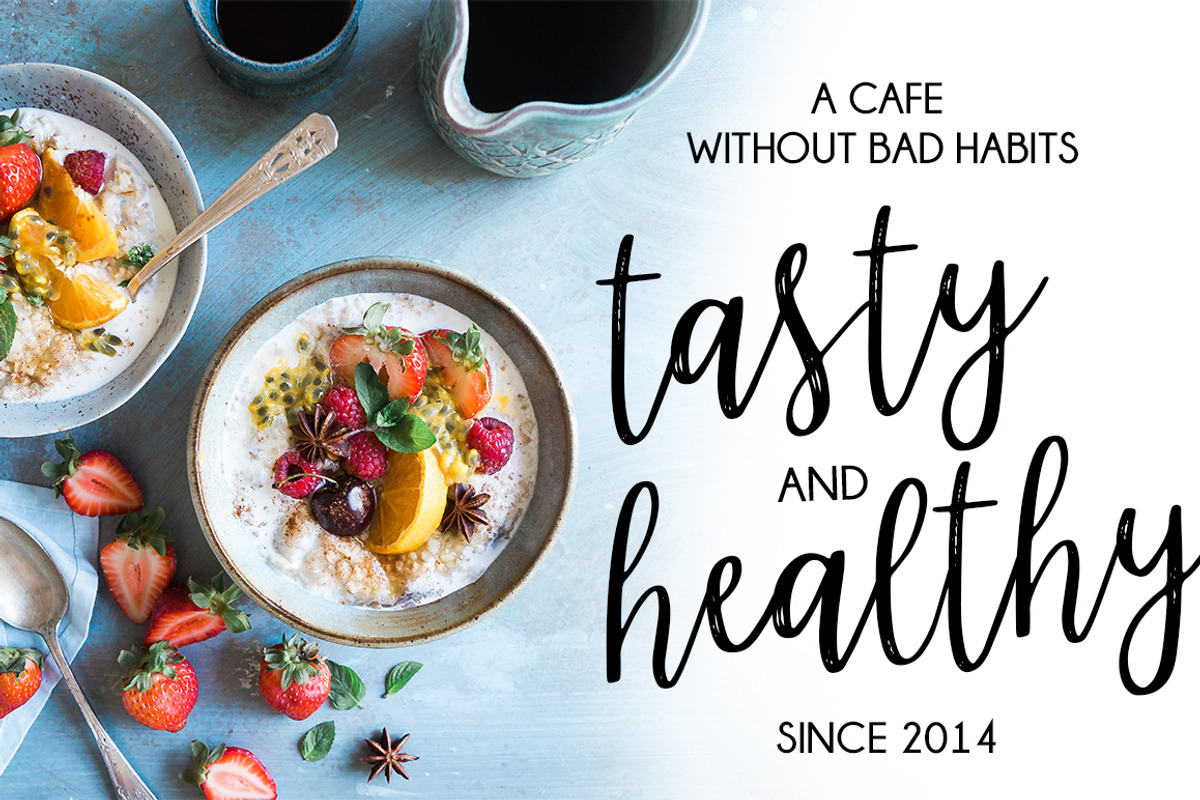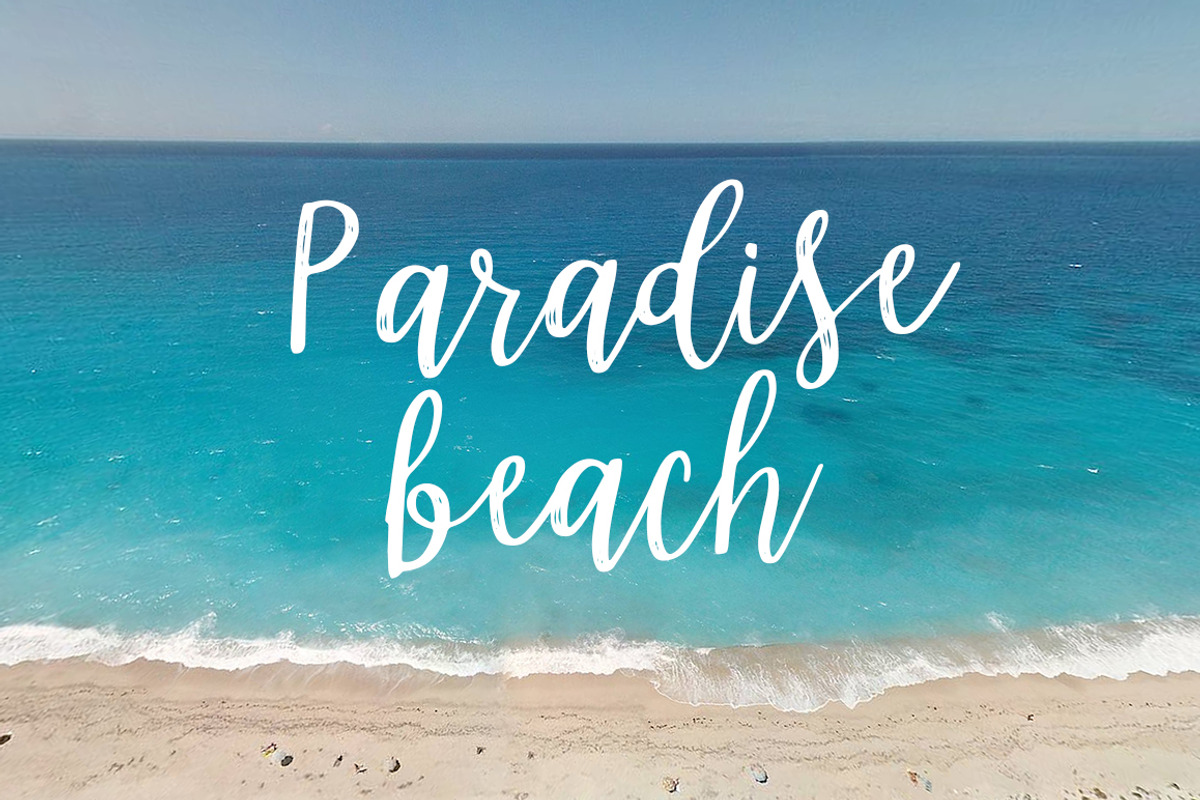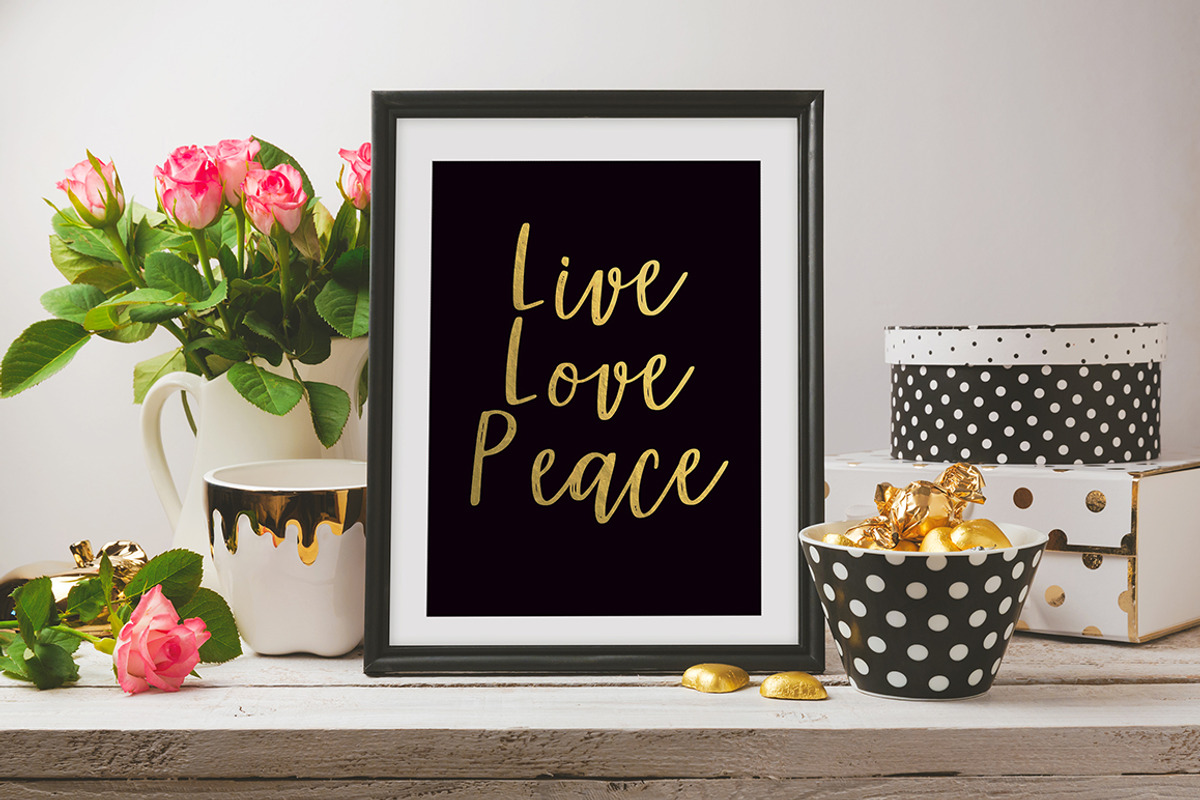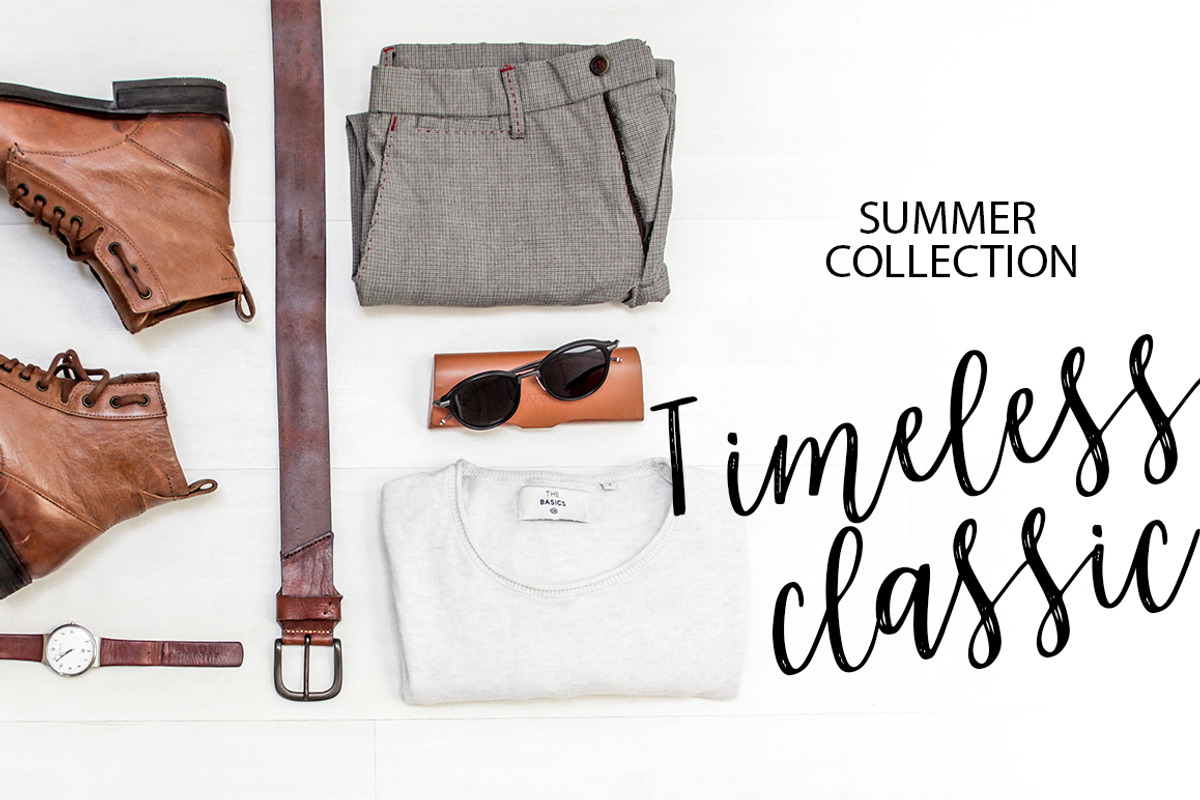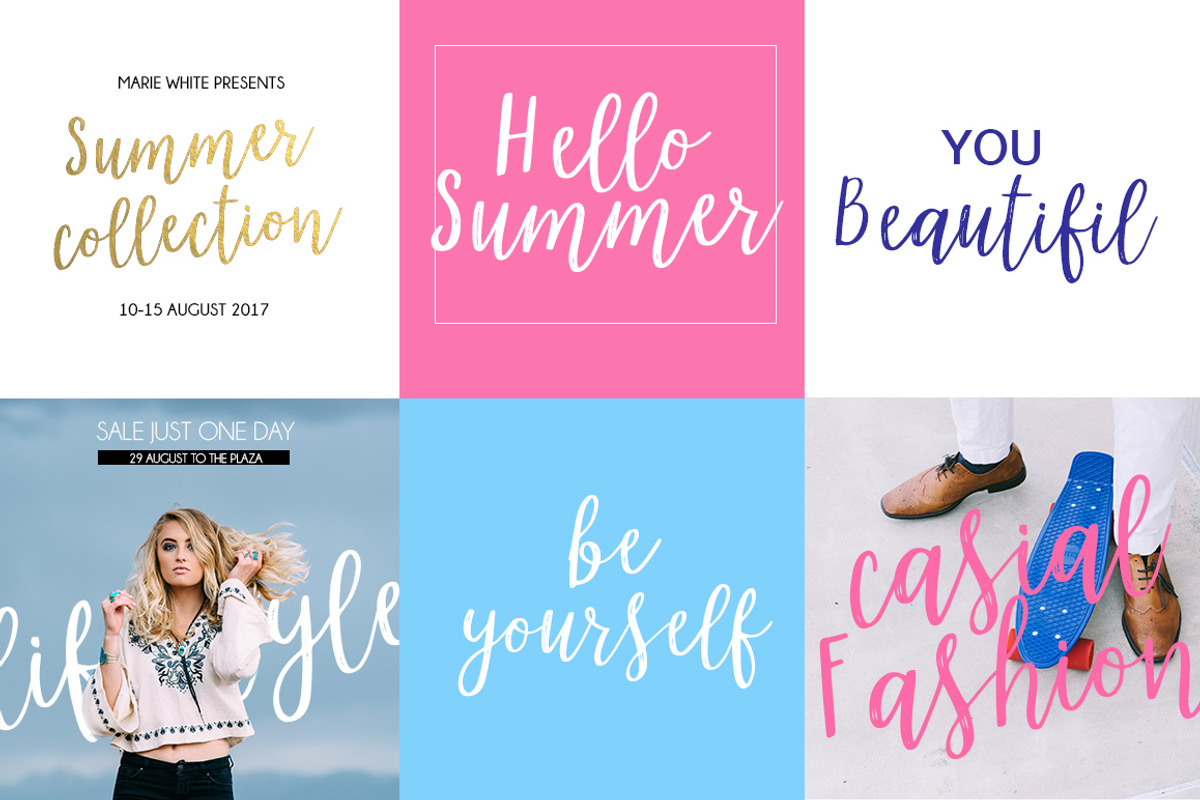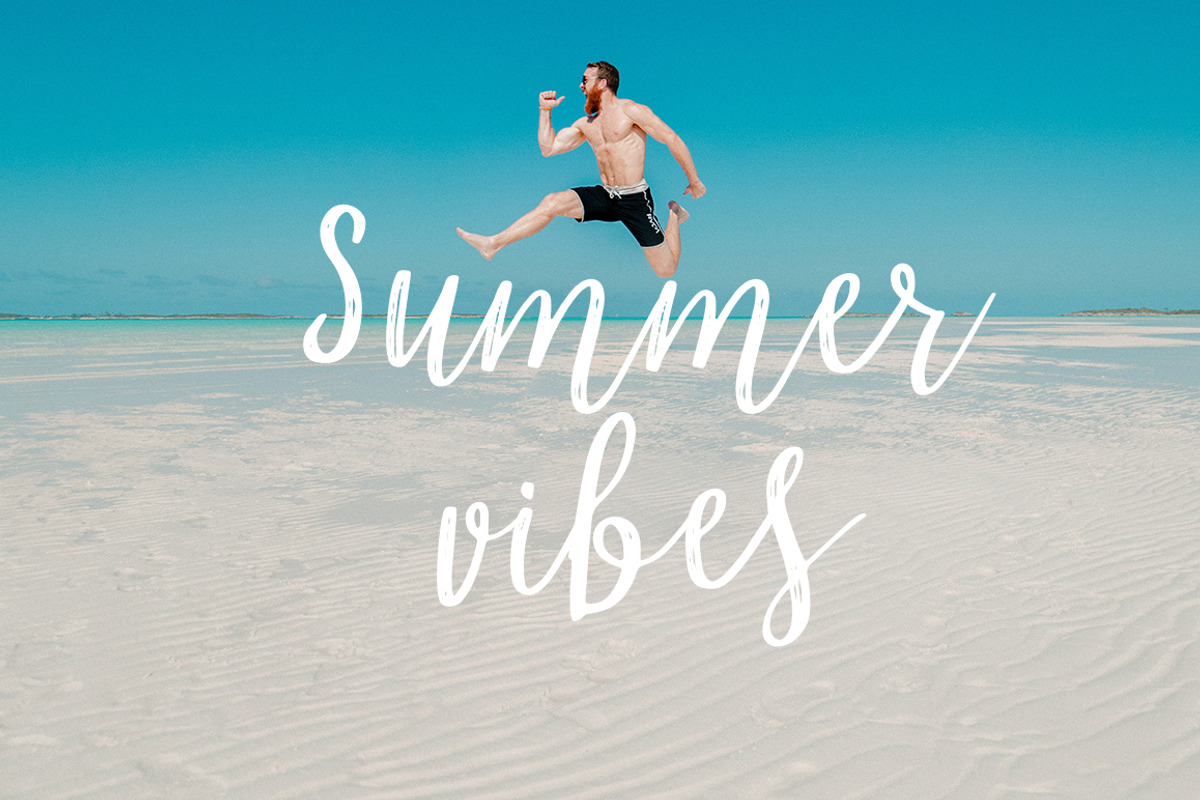
Marmelade Summer Handwritten Font
Meet new Summer Handwritten font MARMELADE!
MARMELADE - a new handwritten font. Very suitable for greeting cards, branding materials, business cards, quotes, posters, and more!
Why Marmelade Summer Handwritten Font is worth a look
Marmelade Summer Handwritten Font by BilberryCreates fits naturally into Branding, posters, packaging, typography.